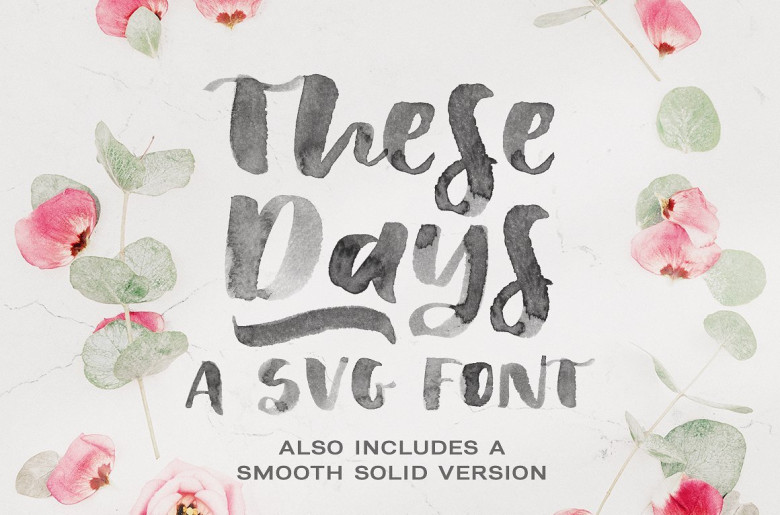
Hello friend. Introducing These Days Font. These Days is a SVG watercolour brush font with a heavy textured look. The SVG font includes a more limited character set without multilingual support. It also includes a set of 26 ligatures, doodles, swashes and splatters (in the Extras files), perfect to decorate your designs. A charming typeface and So beautiful on invitation like greeting cards, branding materials, business cards, quotes, posters, and more!